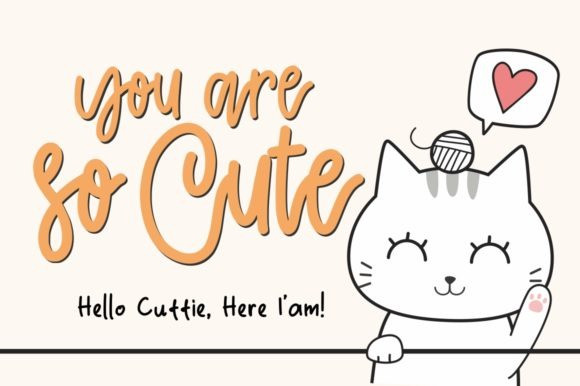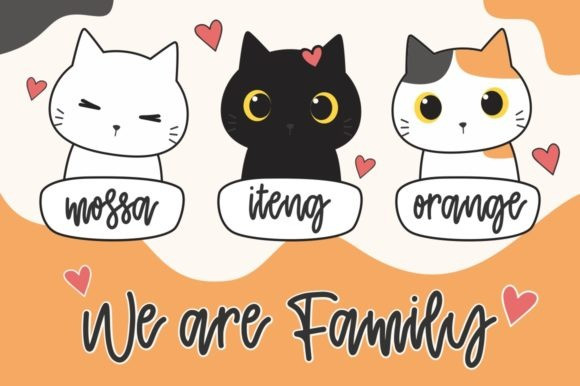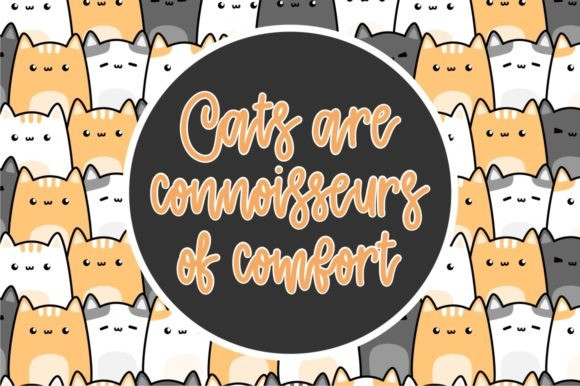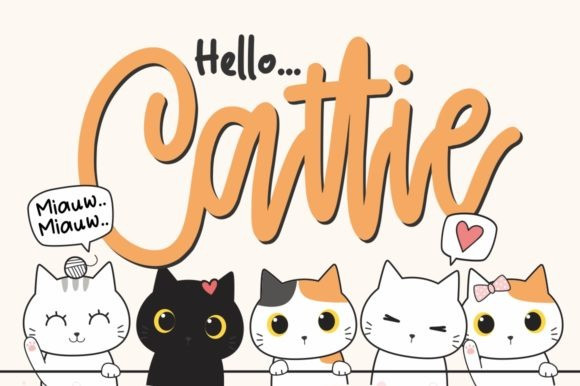
Cattie – Cute Script Font
Say hello to Cattie – Cute Script Font . This is a cute handwriting script installable font! It’s designed and shared by Garisman Studio. It’s a cute script with charming letters. It’s the ideal typeface for giving your DIY projects a personal and authentic feel! This works great in projects that use lots of text. Use it on craft projects, party invitations, home decor, signs, etc.!